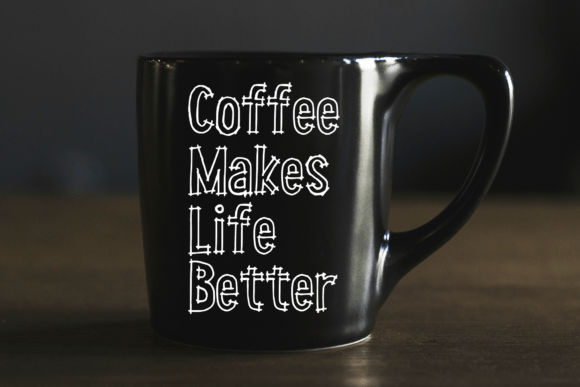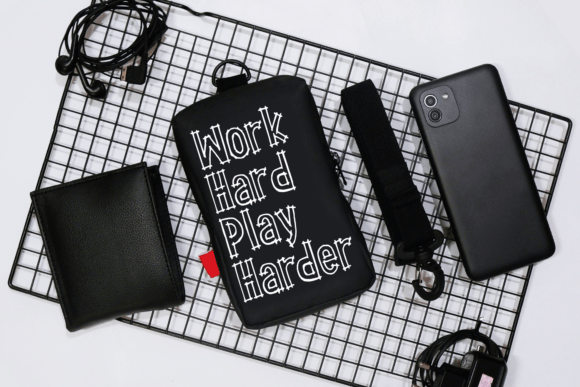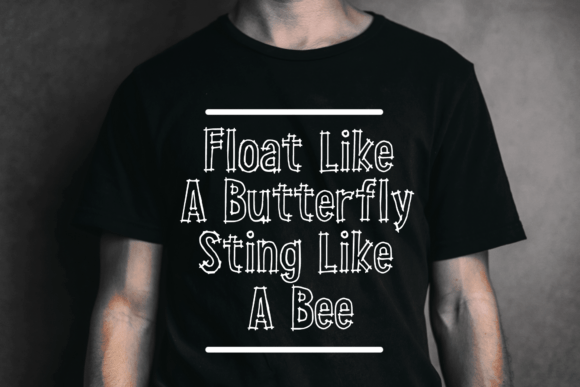
Introducing Handdrawn Blueprint Font: A Sketchy, Cartoon-Style Decorative Typeface
Are you tired of using the same old fonts in your designs? Do you want to add a touch of personality and whimsy to your projects? Look no further than the Handdrawn Blueprint Font, a hand-drawn outline display font that’s perfect for designers, crafters, and anyone looking to add a dash of DIY energy to their work.
What is Handdrawn Blueprint Font?
Handdrawn Blueprint is a hand-drawn outline display font that captures the essence of cartoon-era drafting notes and quick pencil marks. Its loose, irregular strokes, subtle wobbles, and rough edges create an authentic, in-progress look that’s lively yet readable. This font is perfect for adding a touch of playfulness and approachability to your designs, making it ideal for stickers, t-shirt graphics, playful logos, comics, and bold cover or poster titles.
Key Features of Handdrawn Blueprint Font
- Hand-drawn outline display font: Handdrawn Blueprint is a unique font that’s been carefully crafted to mimic the look of hand-drawn blueprints and drafting notes.
- Sketchy, cartoon/blueprint-style: This font has a distinctly sketchy, cartoonish feel that’s perfect for adding a touch of whimsy to your designs.
- Loose, irregular strokes: The irregular strokes and subtle wobbles in Handdrawn Blueprint give it a lively, in-progress look that’s perfect for DIY-inspired designs.
- Rough edges and airy outlines: The rough edges and airy outlines of this font make it perfect for adding color fills and layering, giving your designs a bold, eye-catching look.
Uses for Handdrawn Blueprint Font
Handdrawn Blueprint Font is incredibly versatile, making it perfect for a wide range of design projects. Here are just a few ideas to get you started:
- Stickers and labels: Add a touch of personality to your stickers and labels with Handdrawn Blueprint’s playful, hand-drawn style.
- T-shirt graphics: Create bold, eye-catching t-shirt graphics with Handdrawn Blueprint’s loose, irregular strokes and rough edges.
- Playful logos: Use Handdrawn Blueprint to create playful, DIY-inspired logos that are perfect for crafty businesses and creative entrepreneurs.
- Comics and illustrations: Add a touch of cartoonish whimsy to your comics and illustrations with Handdrawn Blueprint’s sketchy, hand-drawn style.
- Bold cover or poster titles: Use Handdrawn Blueprint to create bold, eye-catching titles for your posters, flyers, and other marketing materials.
Why Choose Handdrawn Blueprint Font?
So why choose Handdrawn Blueprint Font for your design projects? Here are just a few reasons:
- Unique, hand-drawn style: Handdrawn Blueprint offers a unique, hand-drawn style that’s sure to set your designs apart from the crowd.
- Instantly expressive: This font is instantly expressive, making it perfect for designers who want to add a touch of personality to their work.
- Fun and approachable: Handdrawn Blueprint has a fun, approachable vibe that’s perfect for designers who want to create playful, DIY-inspired designs.
- Technical charm: Despite its playful style, Handdrawn Blueprint has a technical charm that’s perfect for designers who want to add a touch of sophistication to their work.